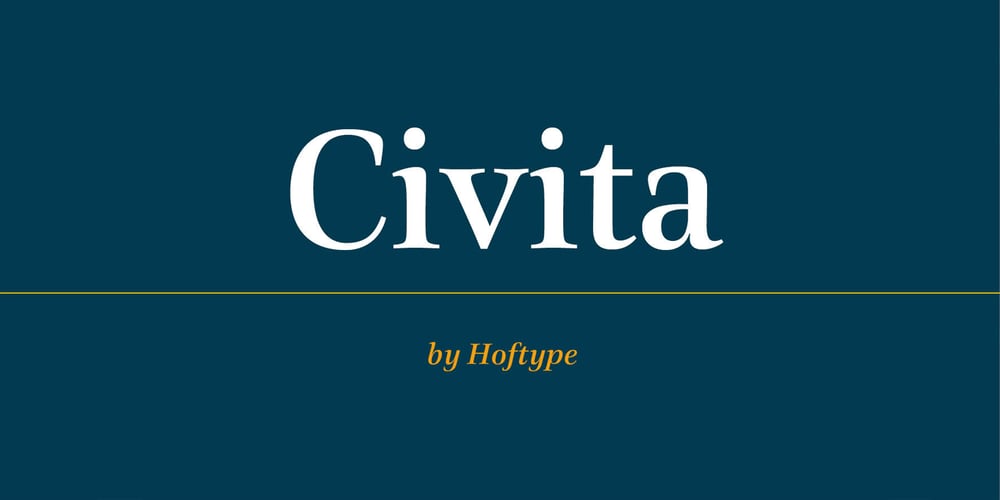
Civita Font Family was designed by Dieter Hofrichter and published by Hoftype. Civita contains 12 styles and family package options. Civita is a new ‘Modern Type’ with a high stroke contrast, distinct formal features, and a strong personality. It has a fluid ductus but nonetheless a solid structure. Civita is well equipped with many OpenType features which make it especially suitable for ambitious typography. The Civita family consists of 12 styles, comes in OpenType format with extended language support for more than 40 languages. All weights contain small caps, proportional lining figures, tabular lining figures, proportional old style figures, lining old style figures, matching currency symbols, fraction- and scientific numerals.